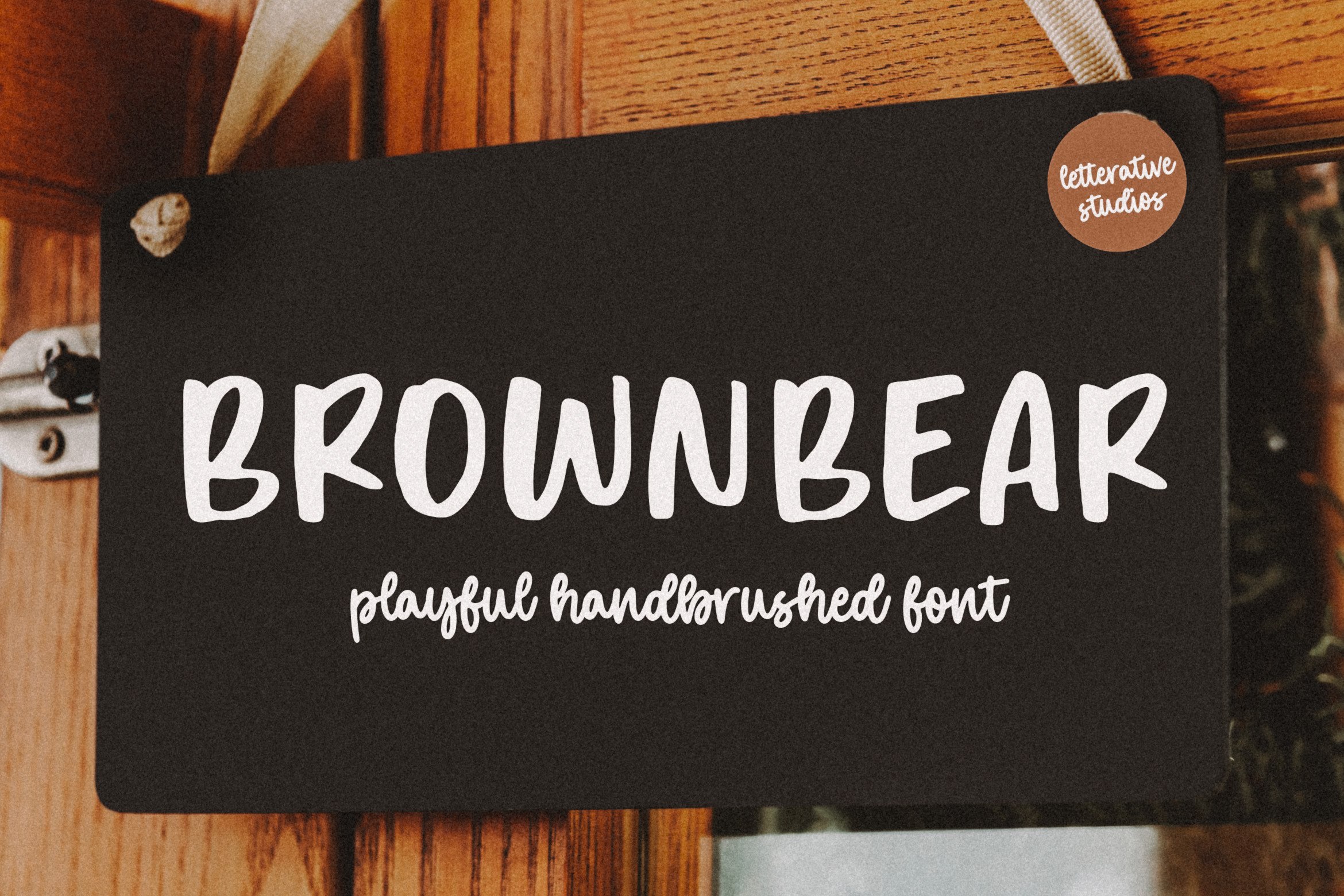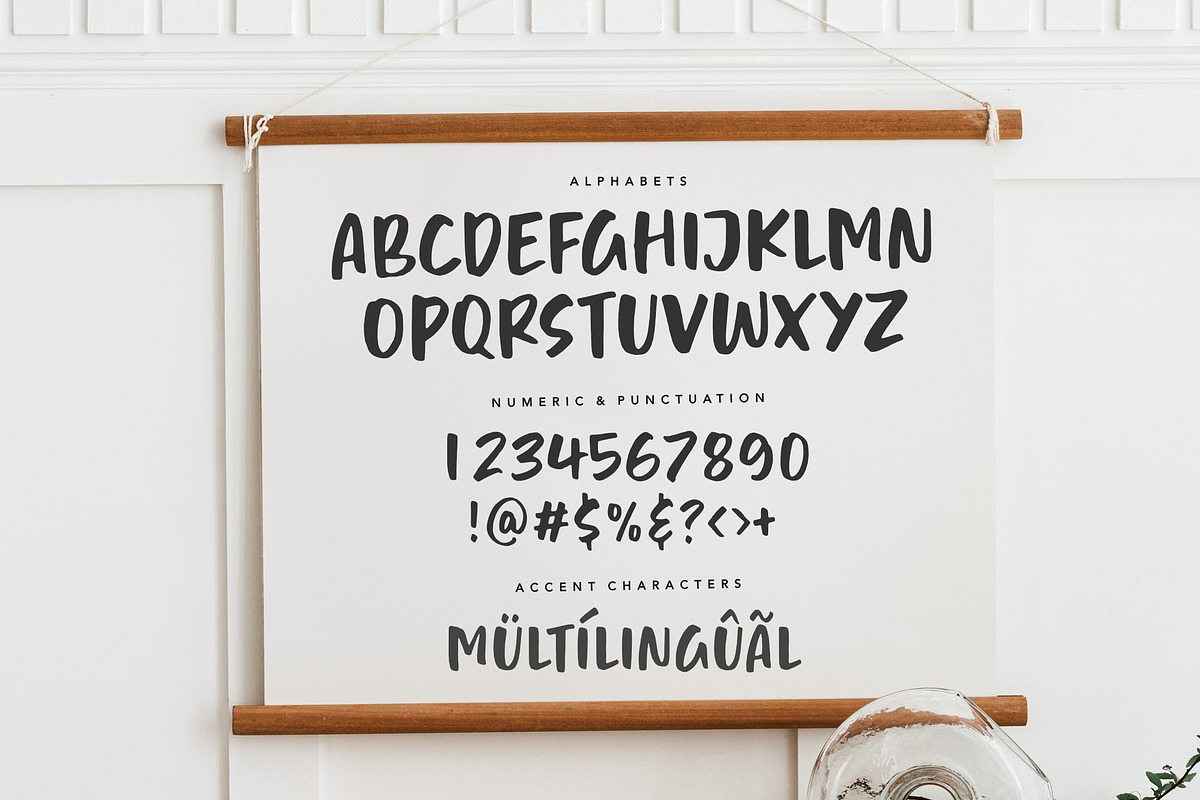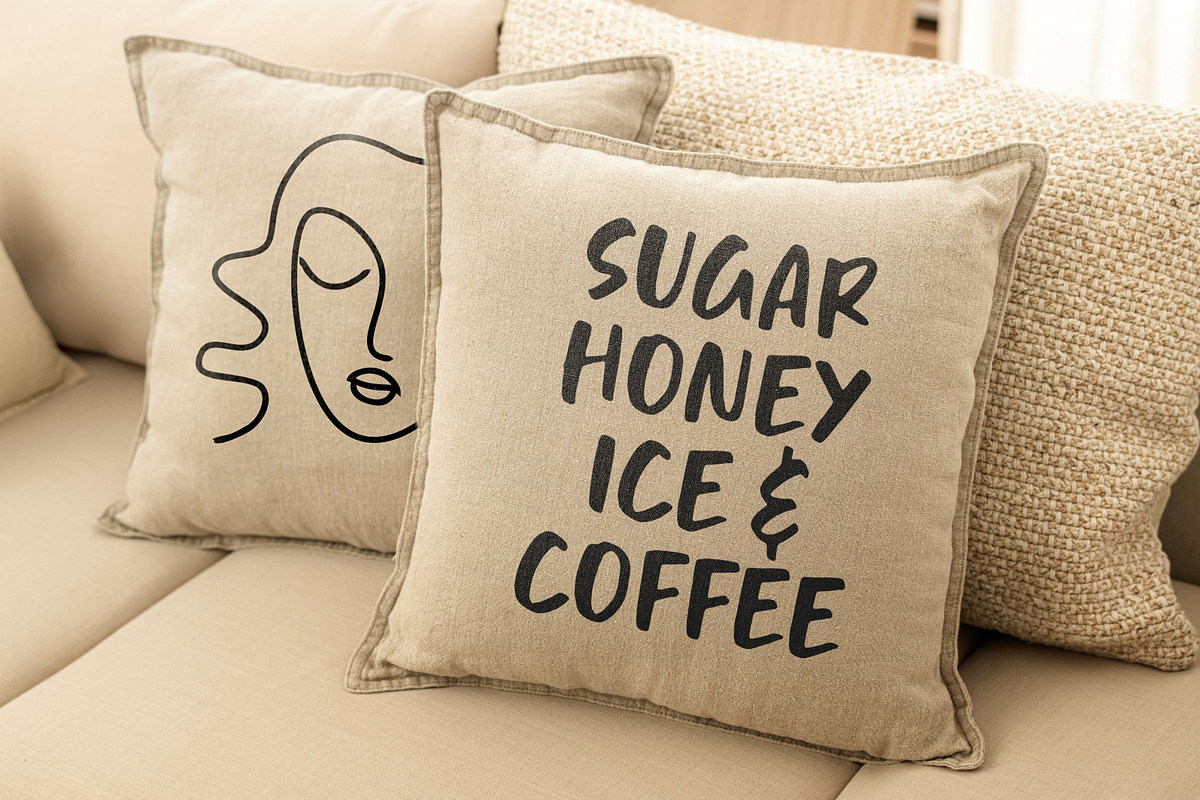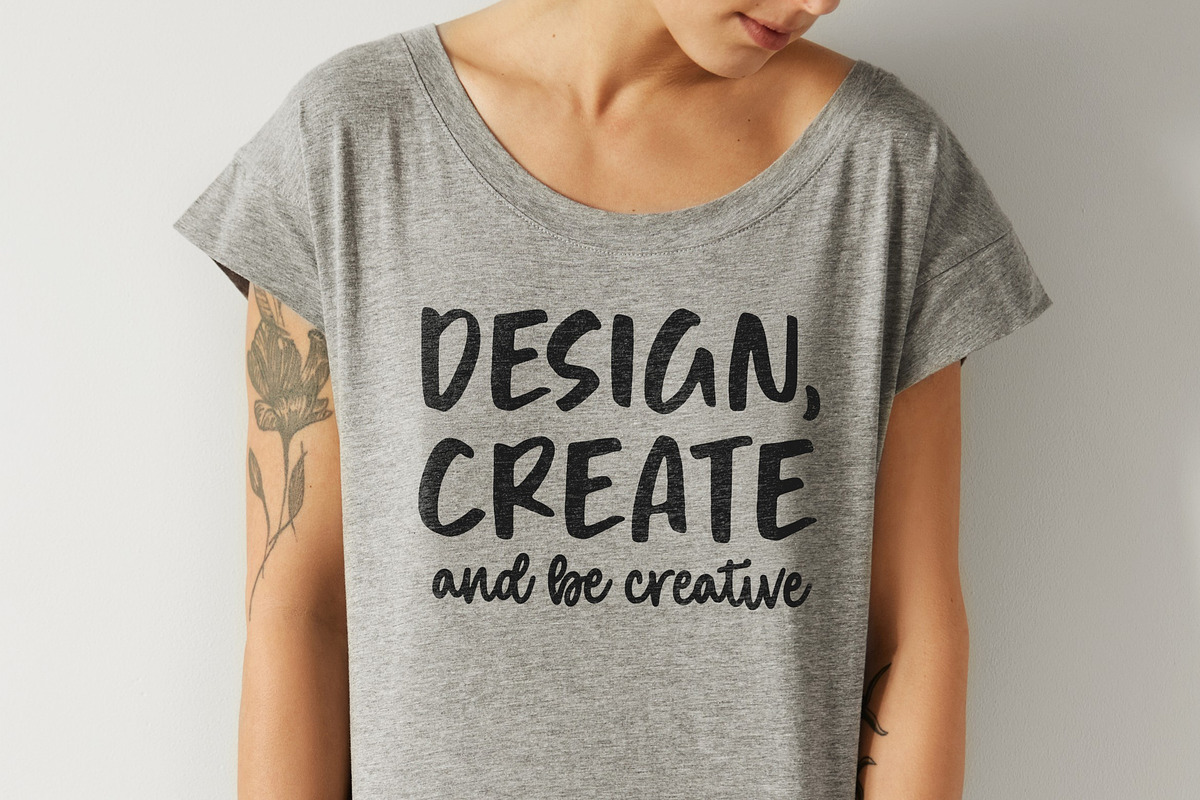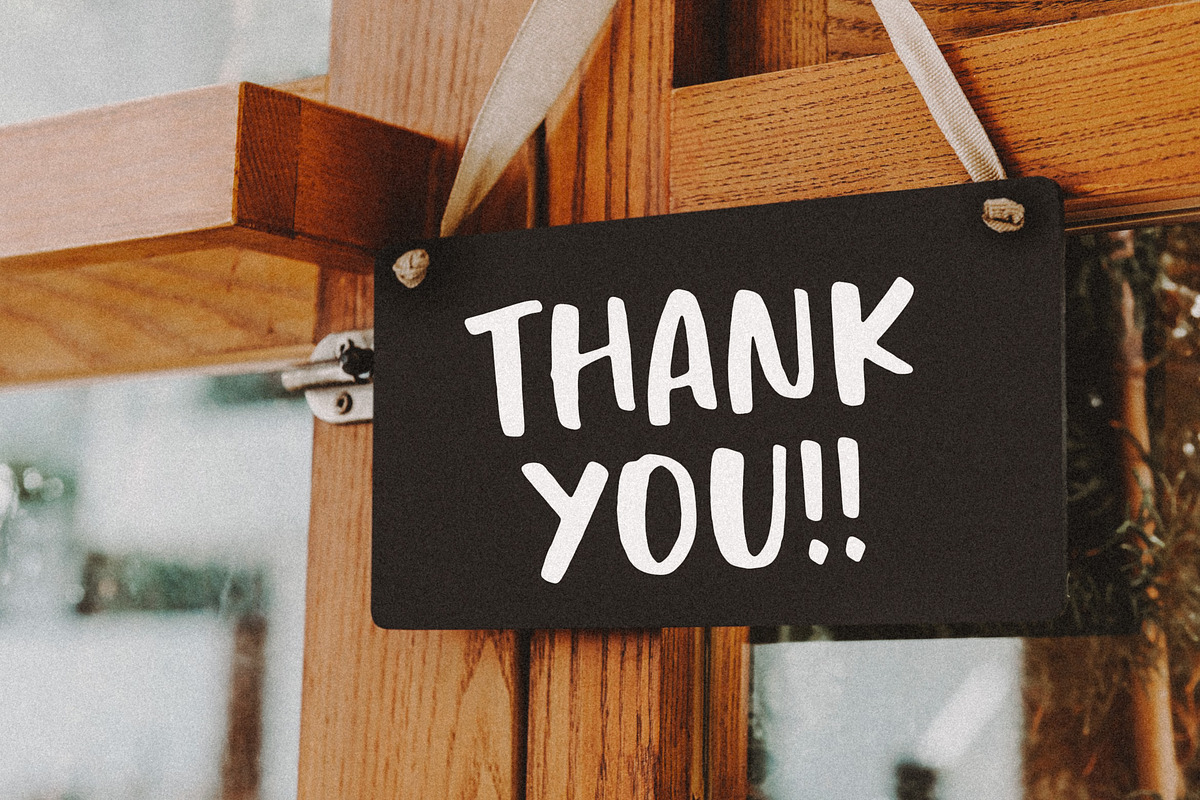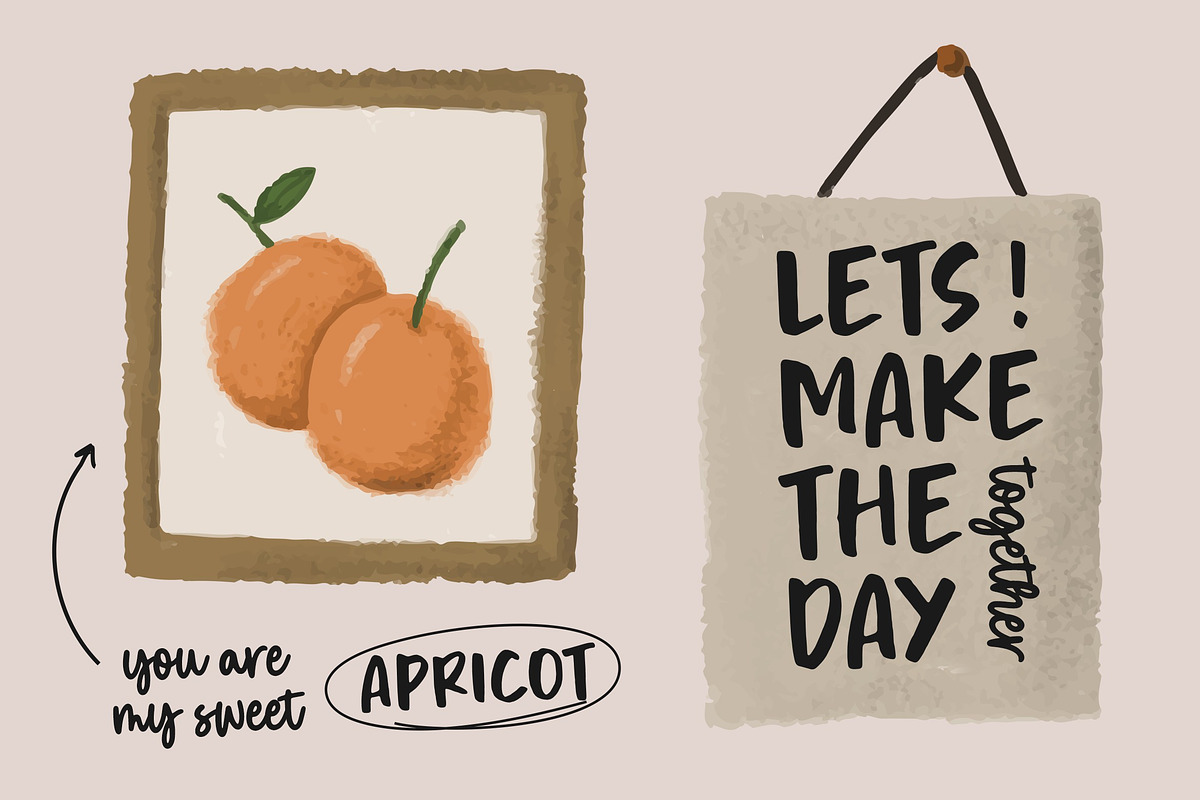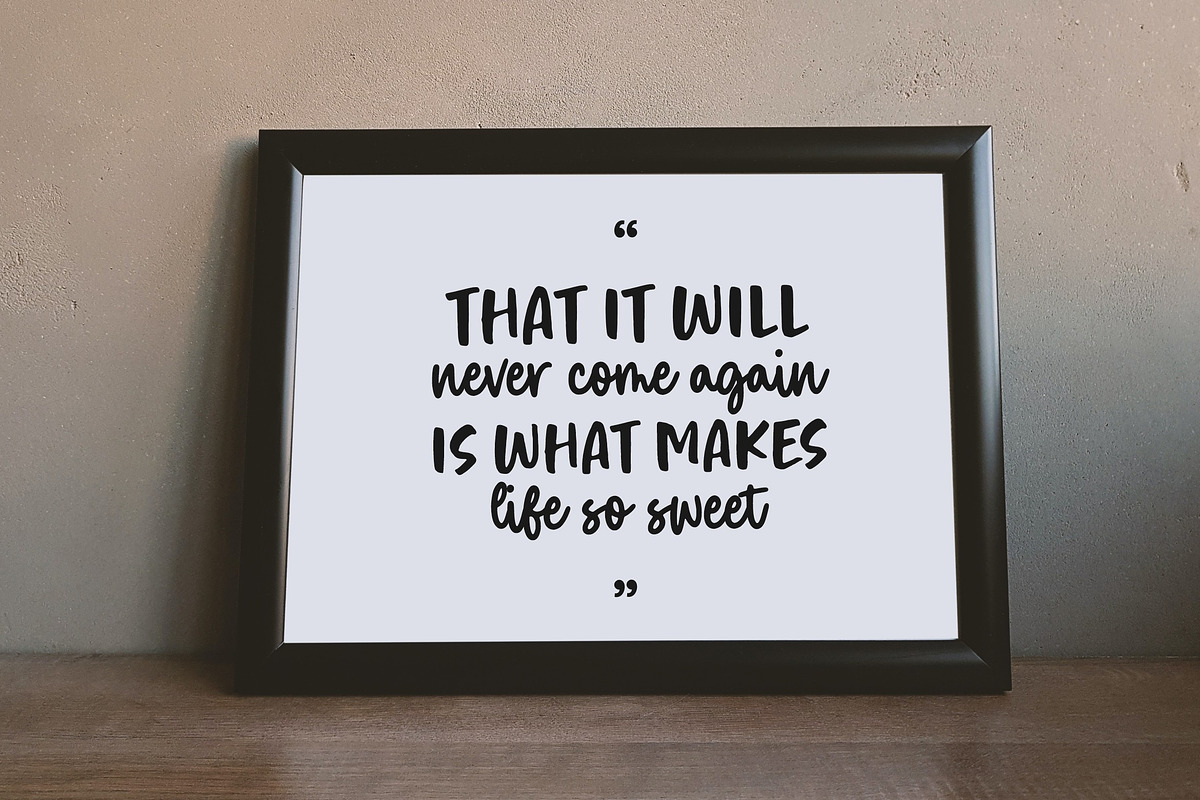
Brownbear - Playful Handbrushed Font
Introducing by Letterative Studio : Brownbear Font
Brownbear is a Modern Handwritten Font
Brownbear is a sweet brushed handwritten font. Whether you’re looking for fonts for Instagram or calligraphy scripts for DIY projects, this font will turn any creative idea into a true piece of art!
This font includes : TTF, OTF and WOFF Brownbear also multilingual support This font only has uppercase letters